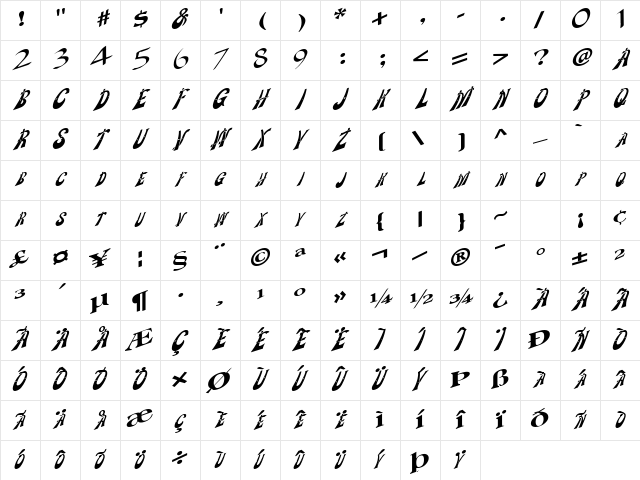
WeighAnchorFont68 Regular
Design Context for WeighAnchorFont68
WeighAnchorFont68 is a composed and adaptable typeface that performs quietly and consistently across a wide range of design contexts.